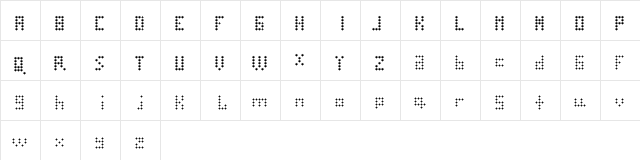
Seeing Double Regular
| Designer | JazSpaceFonts |
Design Context for Seeing Double Typeface
Seeing Double is a composed and adaptable typeface that performs quietly and consistently across a wide range of design contexts.